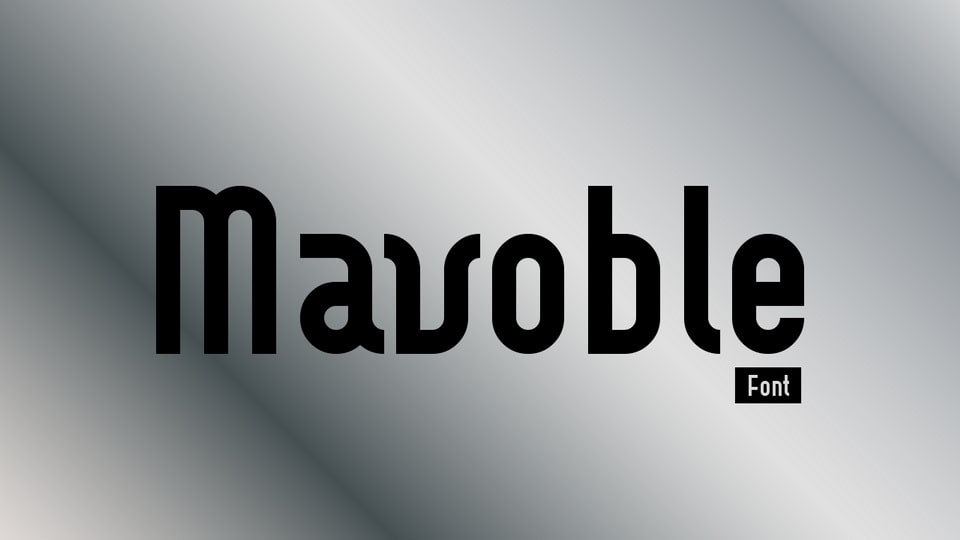
Download Mavoble font, a modern and bold sans-serif typeface featuring sleek, geometric shapes, making it an excellent choice for contemporary designs that demand attention.